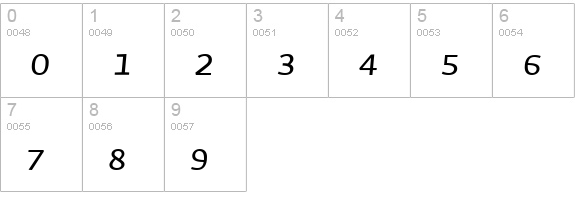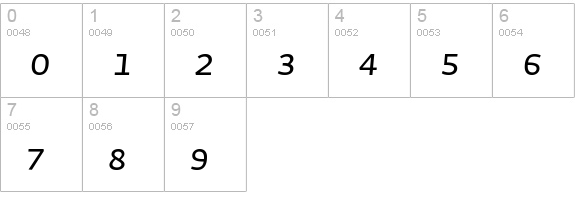
Auto 2 Italic SmCp Font Details
Auto 2 Italic SmCp is a distinctive, italic variant in the Auto typeface family \xE2\x80\x94 well suited to design and typography projects.
Auto 2 Italic SmCp font is a sleek and modern typeface that exudes sophistication and style. Its italicized design adds a touch of elegance to any project, making it perfect for both professional and creative purposes. The small capital letters give it a unique and distinctive look, setting it apart from other fonts. The best part? Auto 2 Italic SmCp font is completely free to download at FontsMarket.com. Whether you're designing a logo, creating a poster, or working on a branding project, this font is sure to make a statement. With its clean lines and contemporary feel, Auto 2 Italic SmCp font is a versatile option that will elevate your designs to the next level. Download it today and see the difference it can make in your work!